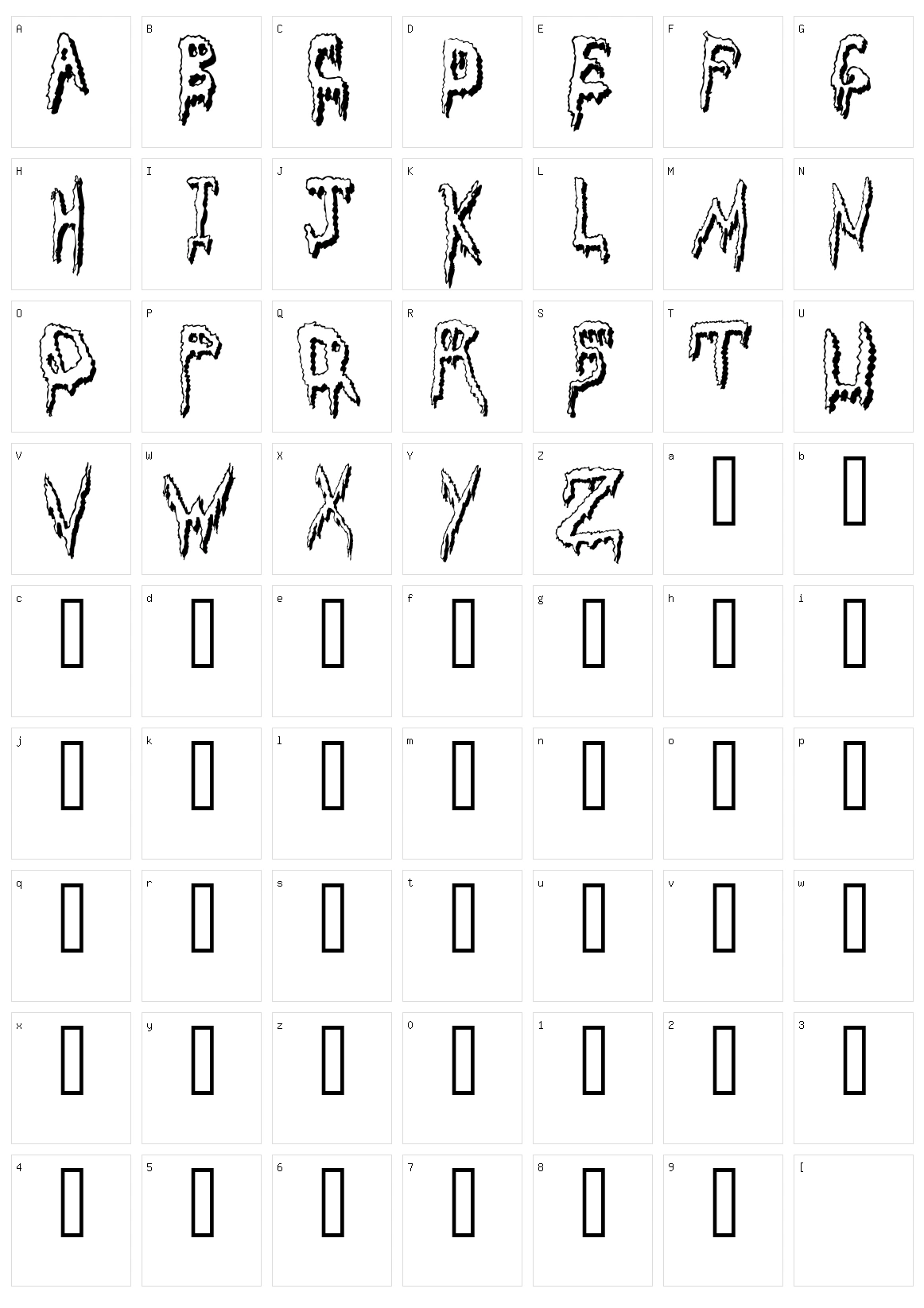
The free font Grossout is carefully designed by The Empire of the Claw, showcasing a thoughtful balance of creativity and usability and falls under the Horror font style. When you download the ZIP file, it contains only 88.99 KB of font files, making it lightweight and quick to download. Please review the license details below to understand permitted usage and distribution rights. If license information is not available, we recommend using this font for personal projects only or contacting the author directly for commercial usage permissions.
A bolder, shadowed version of my grossest font ever. Possibly the closest I've come to the kind of fonts I want to make.